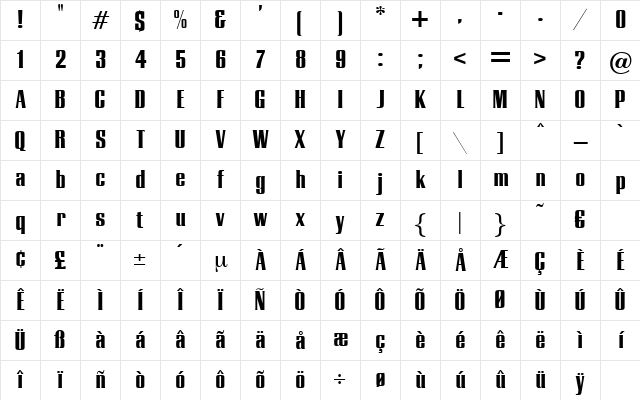
Complete Telescope Regular glyph index. Displaying only characters natively supported by Telescope Regular font.
Telescope is a composed and adaptable typeface that performs quietly and consistently across a wide range of design contexts.
Pro Tip: Use Telescope in both headline and body roles to test its range before committing to a single application.